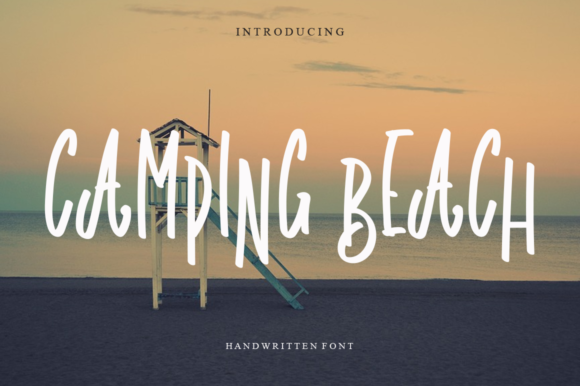
Embark on a Typographic Adventure with Camping Beach Font: Your Gateway to Unique Creations
In the realm of digital artistry, fonts hold the power to transform words into captivating expressions, breathing life into your creative visions. Among this typographic tapestry, Camping Beach Font emerges as a vibrant and playful script, ready to infuse your designs with a touch of whimsy and charm.
Picture this: a sun-kissed beach, the gentle whispers of waves caressing the shore, and the carefree spirit of a seaside escape. Camping Beach Font captures this essence, evoking a sense of adventure and carefree abandon. Its carefully crafted characters dance across the page, each stroke imbued with a sense of movement and vitality that will elevate your designs to new heights.
Crafted by the skilled hands of A2-lucky, this font boasts a delightful balance between thin and thick strokes, creating a visual rhythm that draws the eye and invites exploration. Its varied character forms add a touch of individuality, ensuring that your projects stand out from the ordinary. Whether you're designing a fashion website, crafting social media graphics, or creating eye-catching logos, Camping Beach Font will elevate your work with its infectious energy and undeniable charm.
Beyond its aesthetic appeal, Camping Beach Font is a remarkably versatile tool that empowers you to express your creativity in countless ways. Its friendly and approachable nature makes it ideal for projects aimed at a younger audience, while its inherent playfulness lends itself perfectly to whimsical and lighthearted designs. Unleash your imagination and let Camping Beach Font guide you on a typographic journey that will leave a lasting impression on your audience.